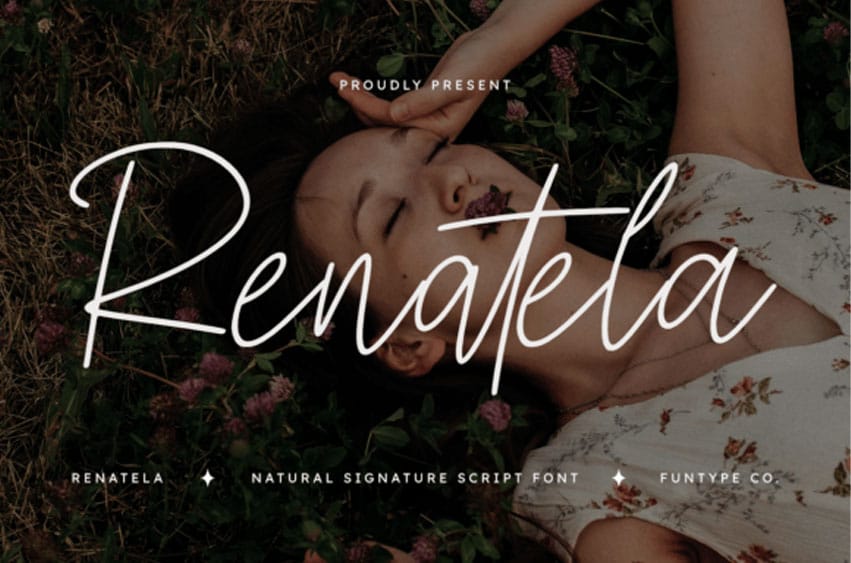
Renatela Font display Japanese font, artistic characters, combining a classic feel with a touch of elegant Japanese aesthetics. The letterforms are sharp, decorative, and richly detailed, creating a dramatic and distinctive look. Each curve of the letterform feels like a vibrant calligraphic stroke, creating a unique and expressive visual feel.
This font is suitable for logos, poster titles, creative designs, and visual works themed around fantasy and Japanese culture. This font evokes a strong and imaginative creative atmosphere, making it ideal for branding, editorial design, and visual projects.